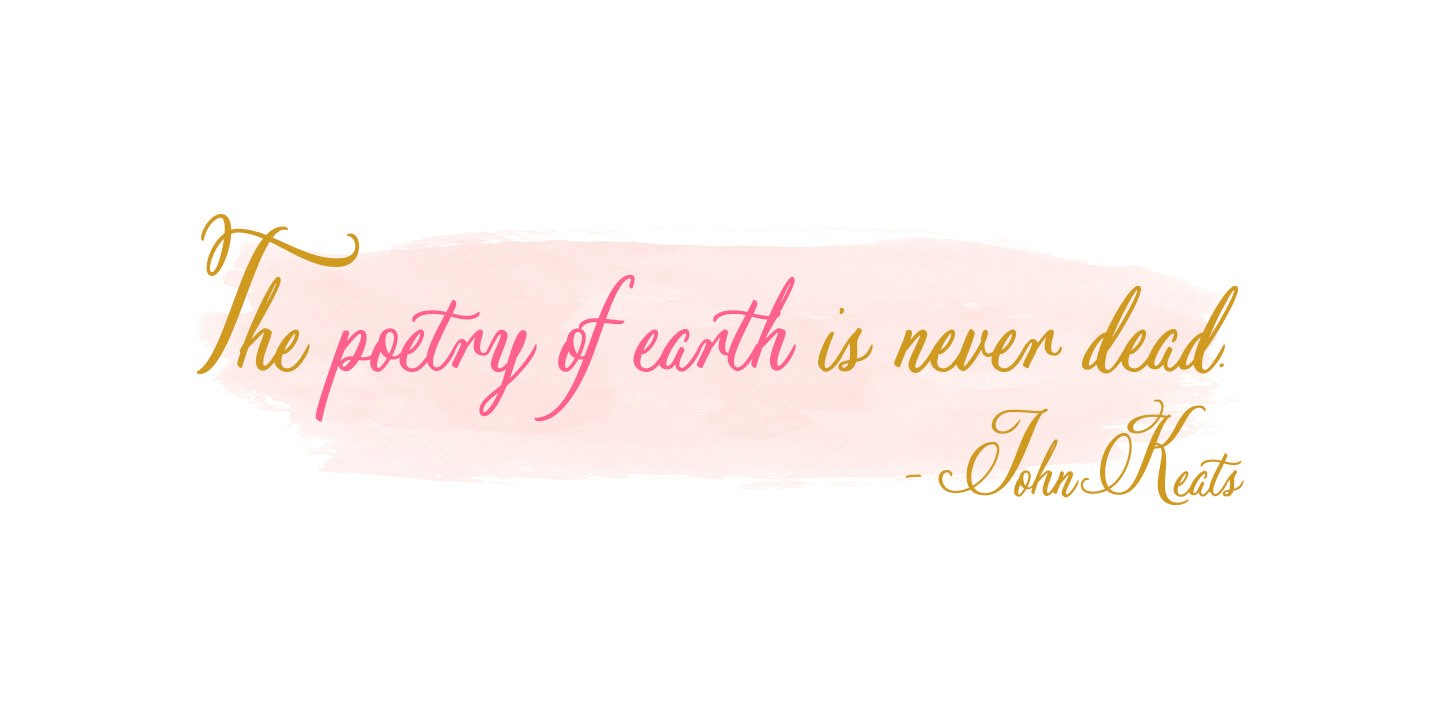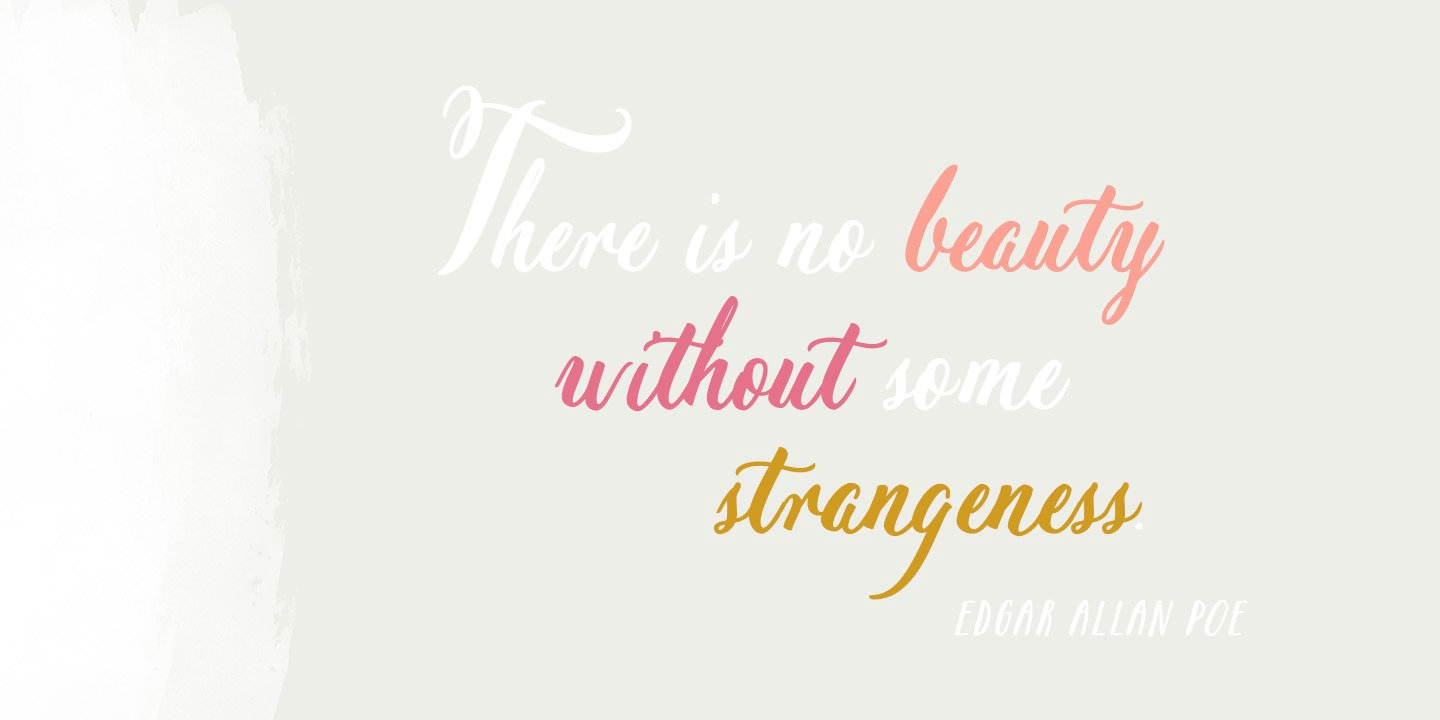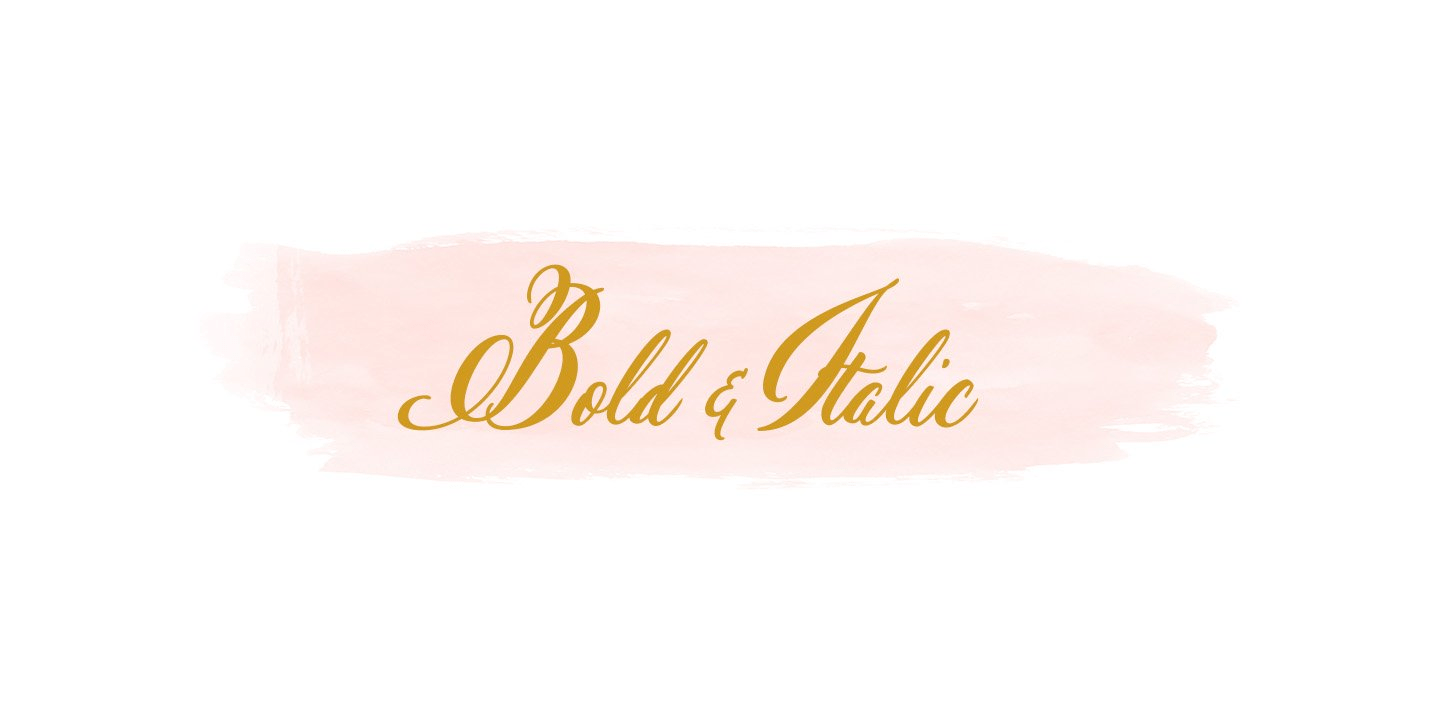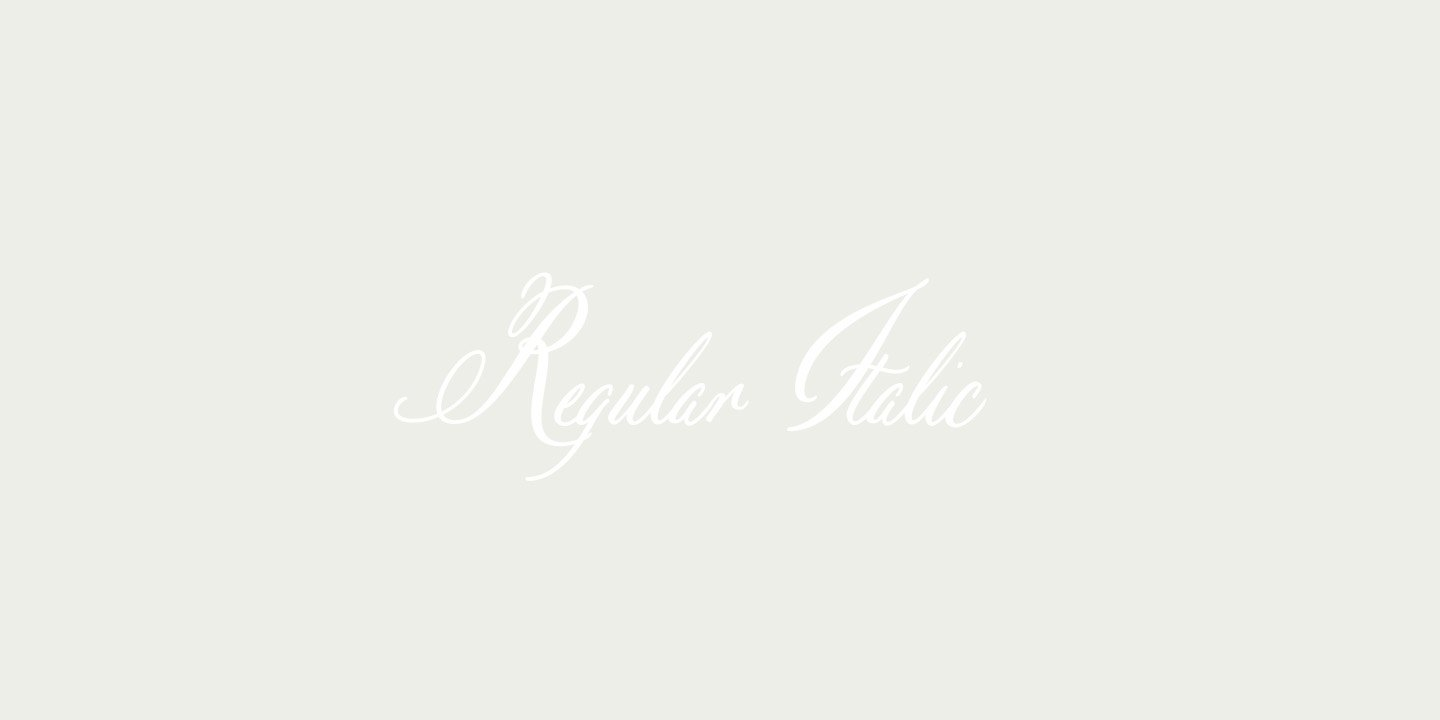
About Pen Swan
Pen Swan is the latest offering from Jen Maton & Great Lakes Lettering. Pen Swan is the name for an adult female swan. It is a fitting name as it contains ?pen? in the name which is the tool used to draw the letters. Pen swan demonstrates the same grace…